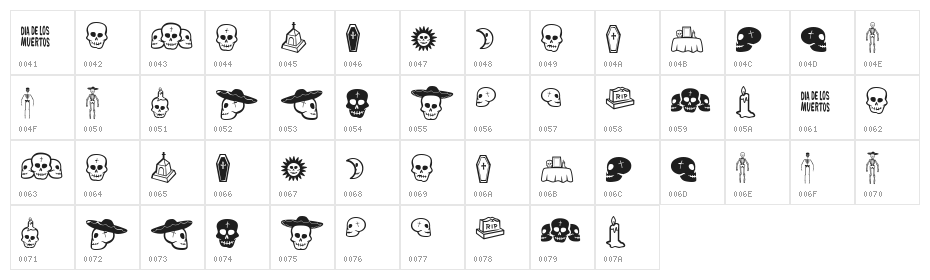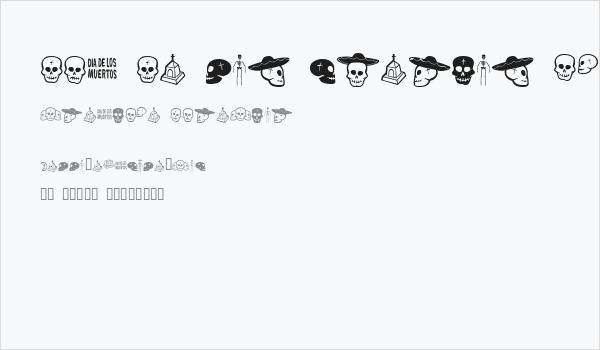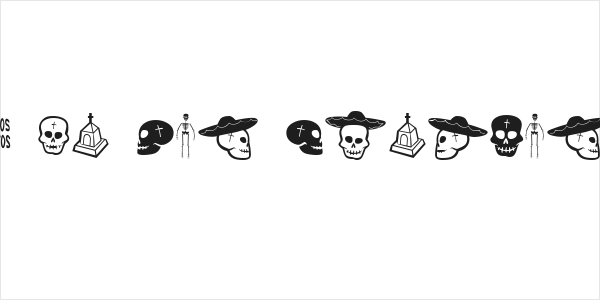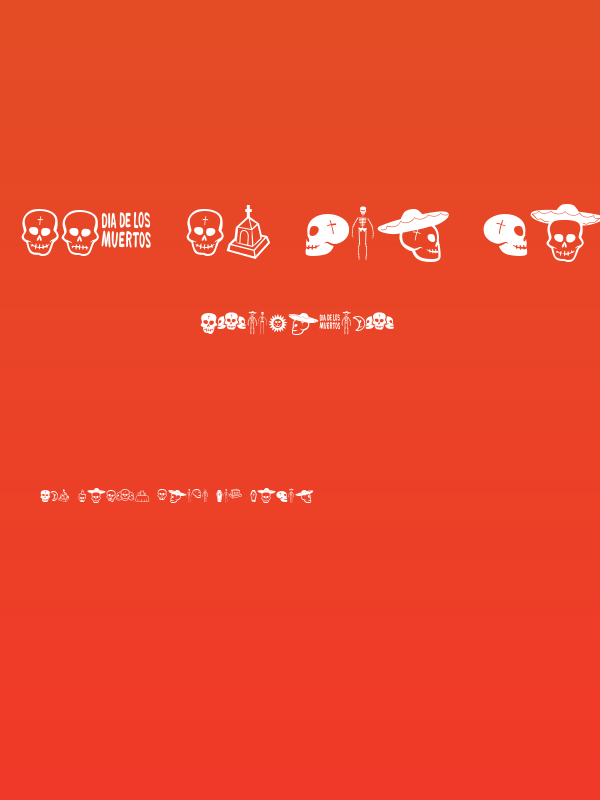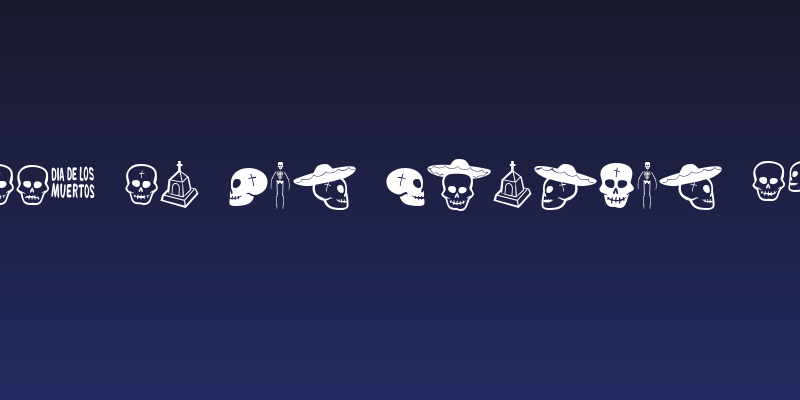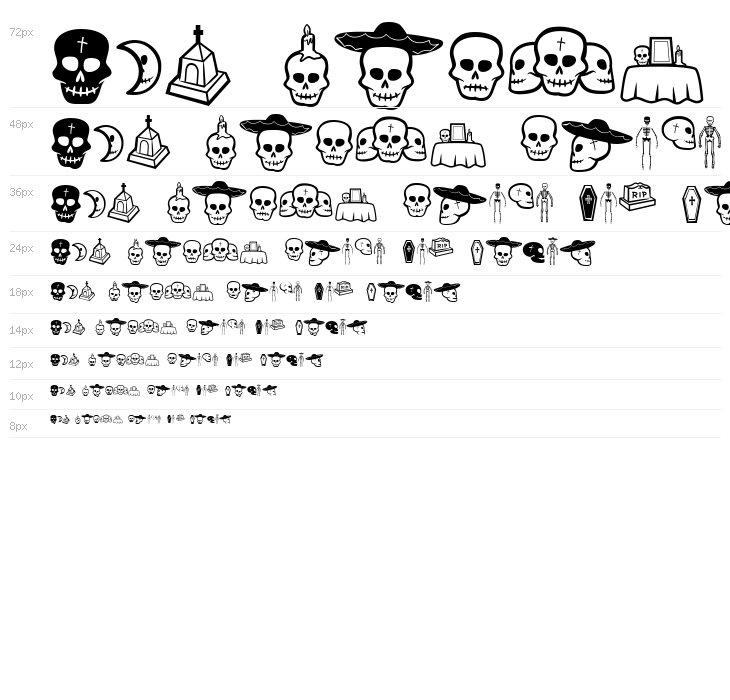
Dia De Los Muertos BV Font
Dia De Los Muertos BV Description
This font is a decorative and thematic representation inspired by the Dia de los Muertos celebration. It features a variety of symbols associated with the holiday, such as skulls, skeletons, gravestones, and other related imagery. The design is bold and expressive, capturing the festive and cultural essence of the celebration. The characters are highly stylized, with intricate details that reflect the traditional motifs of the holiday. This font is not suitable for standard text but serves as a decorative element for themed projects.
| Use Case | Logos, Posters, Invitations |
| Proposed Projects | Ideal for themed event posters, cultural festival decorations, holiday invitations, and educational materials about Dia de los Muertos. |